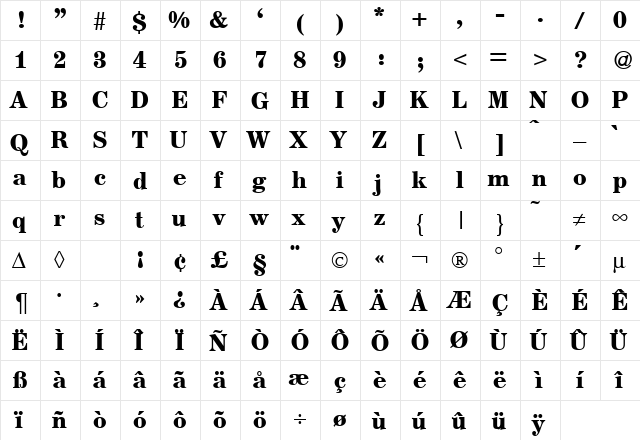
AureliusSerif Bold
Design Context for AureliusSerif Typeface
AureliusSerif brings classic typographic sensibility to the table — its serifs and measured letterforms reflect centuries of print heritage. The heavy weight commands attention and anchors typographic hierarchies.
Pro Tip: Set AureliusSerif with slightly loose tracking in headlines to let each letterform's detail read clearly at display sizes.